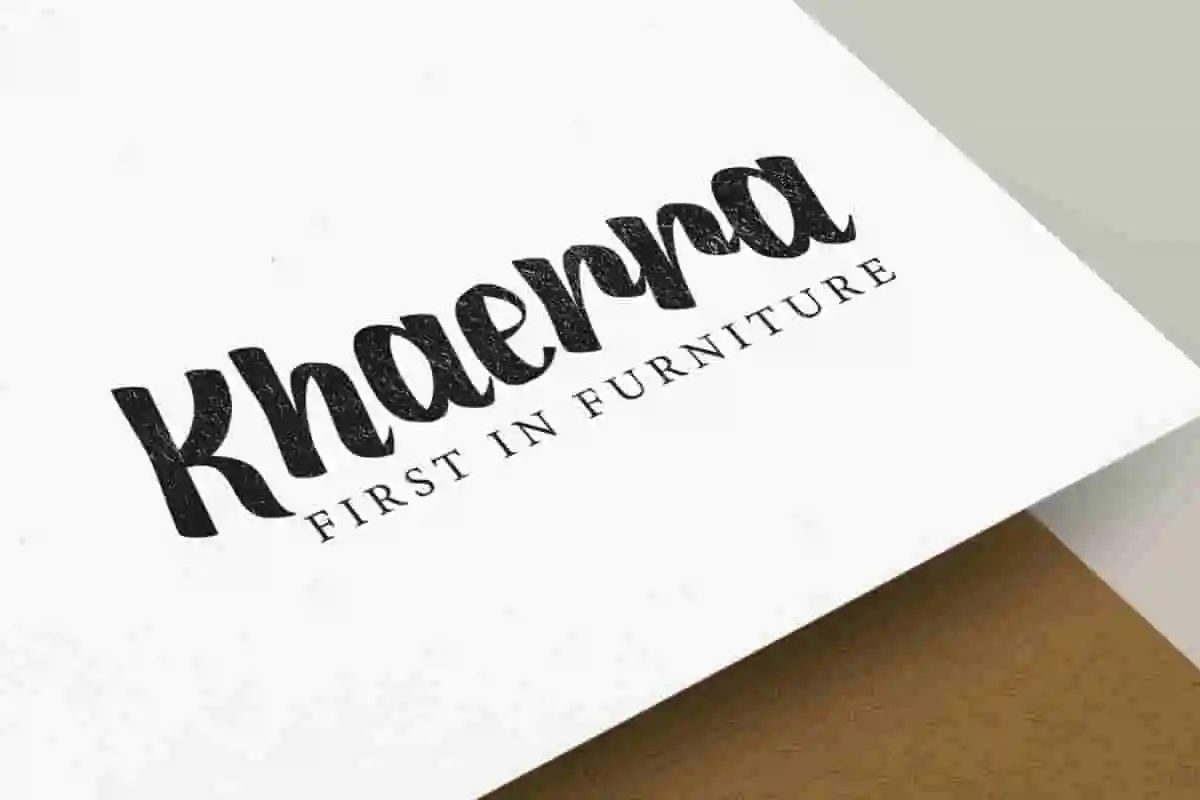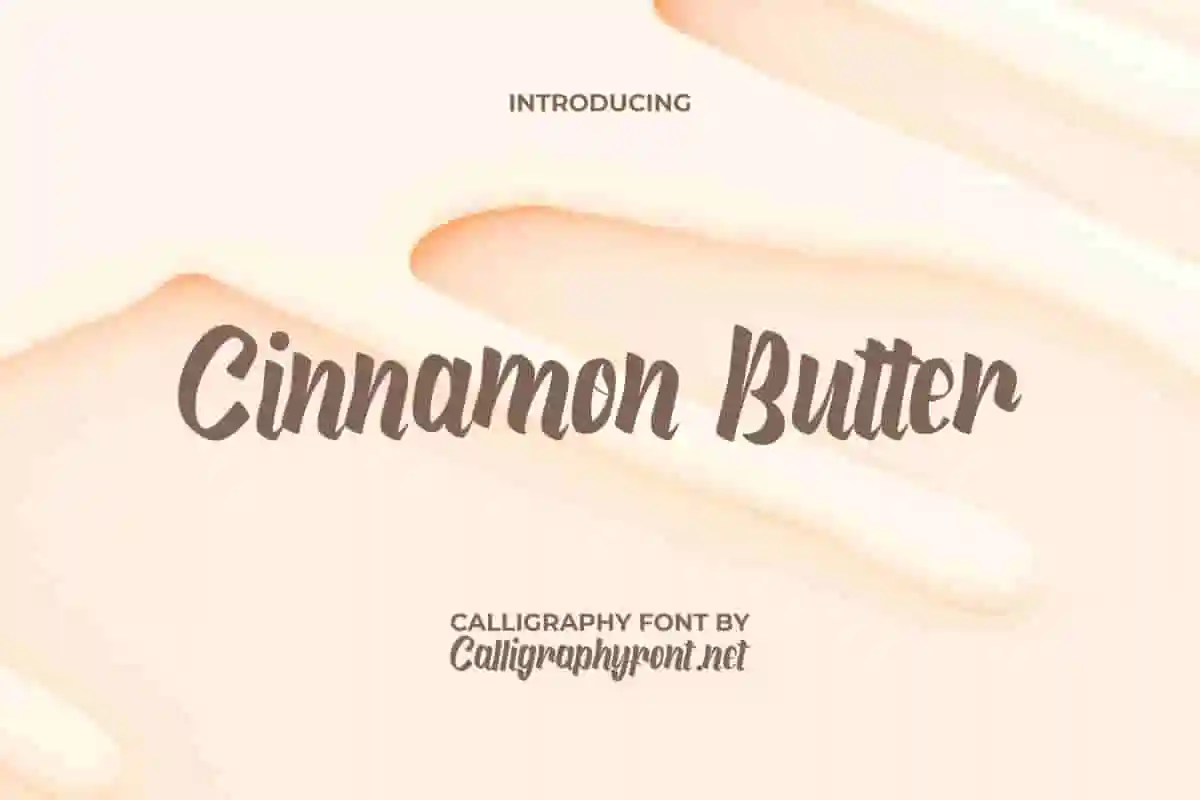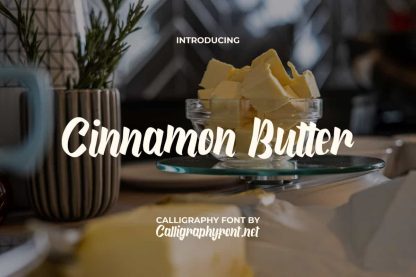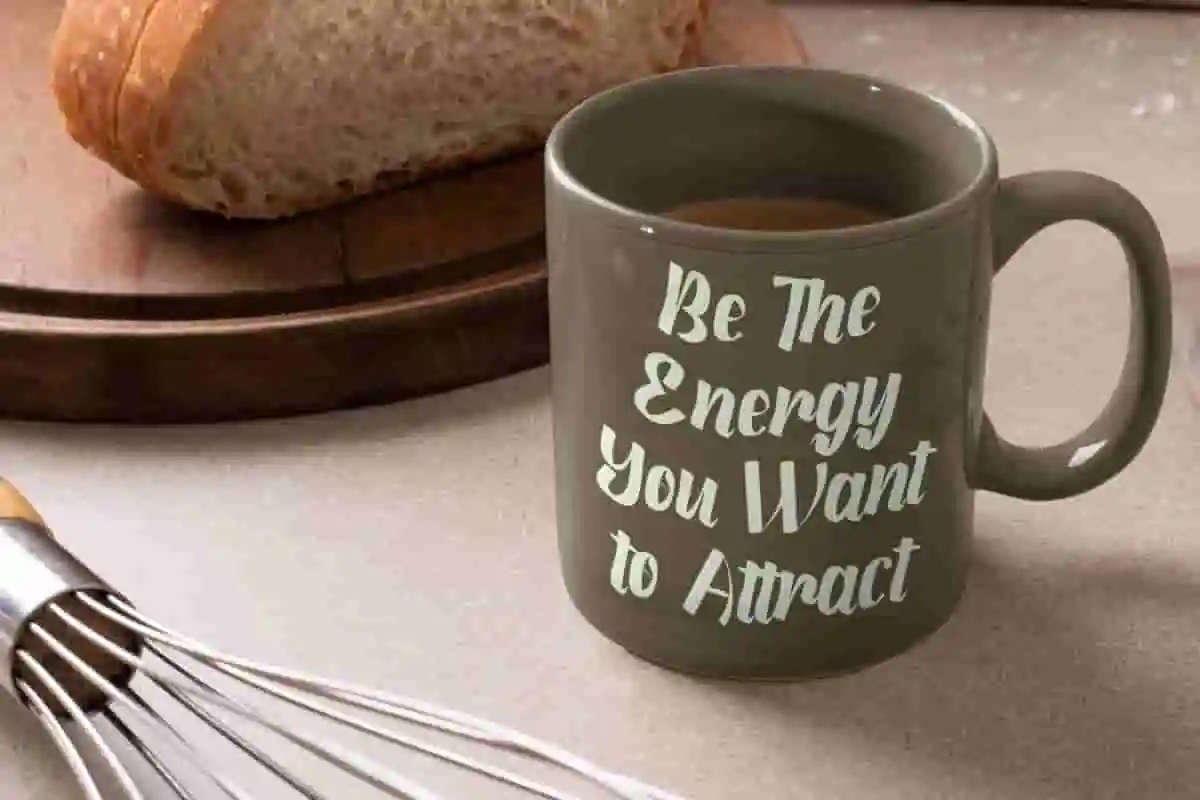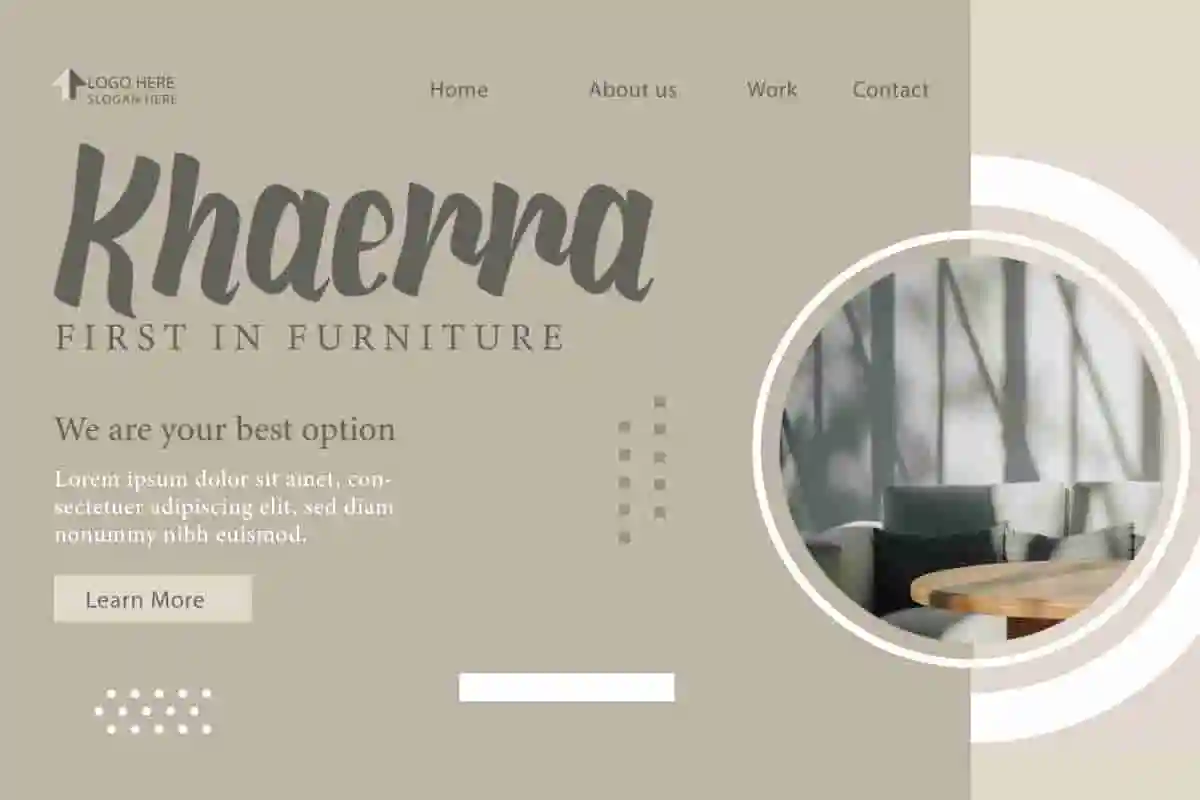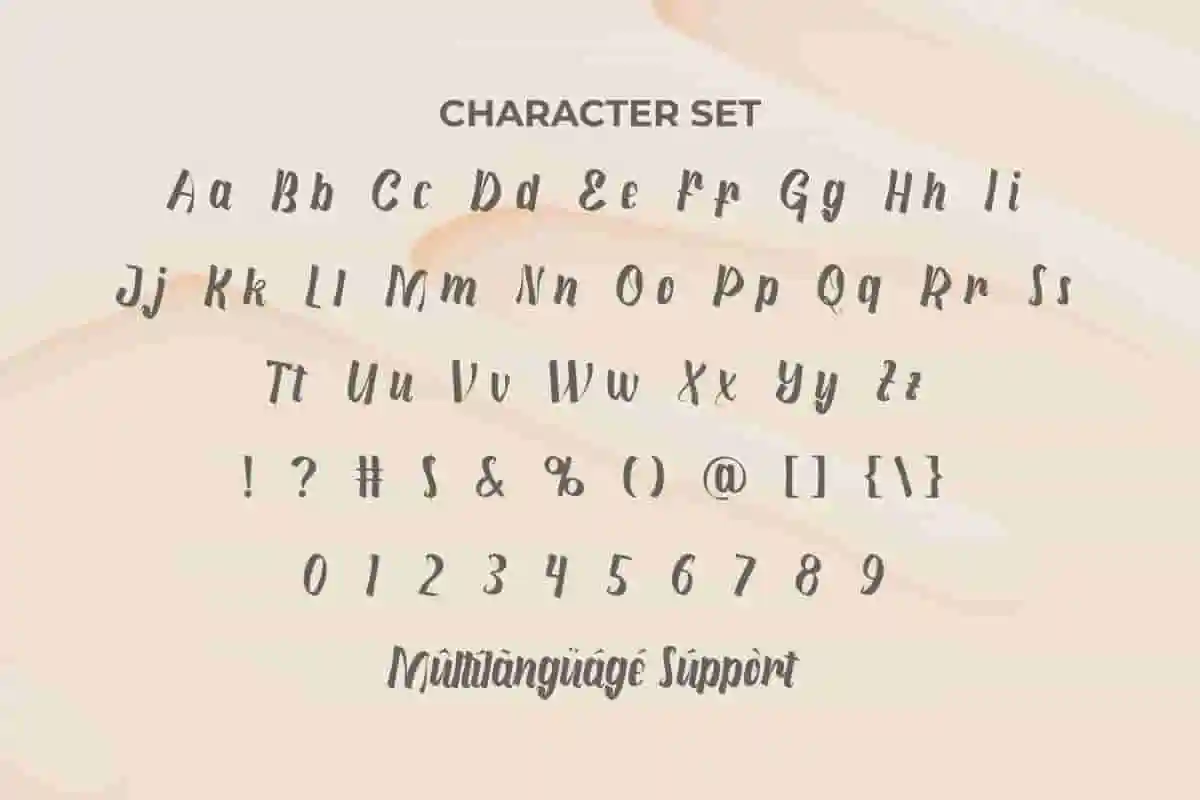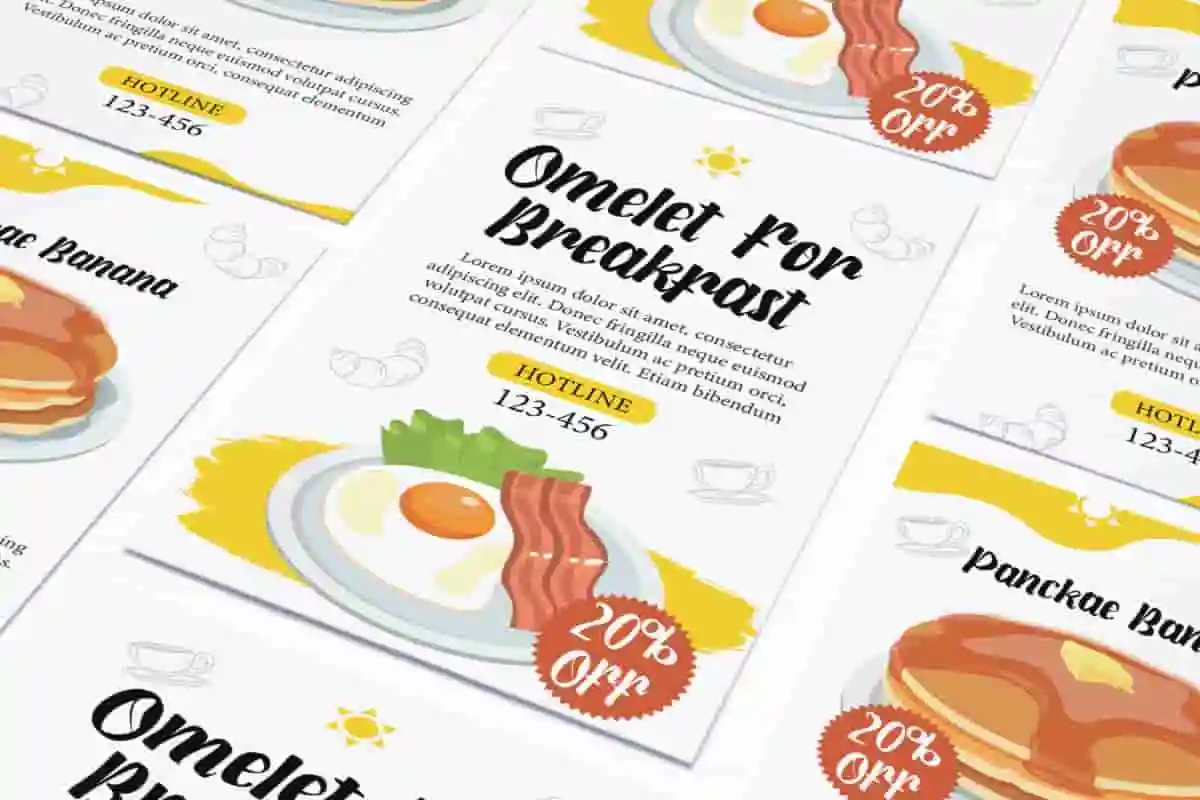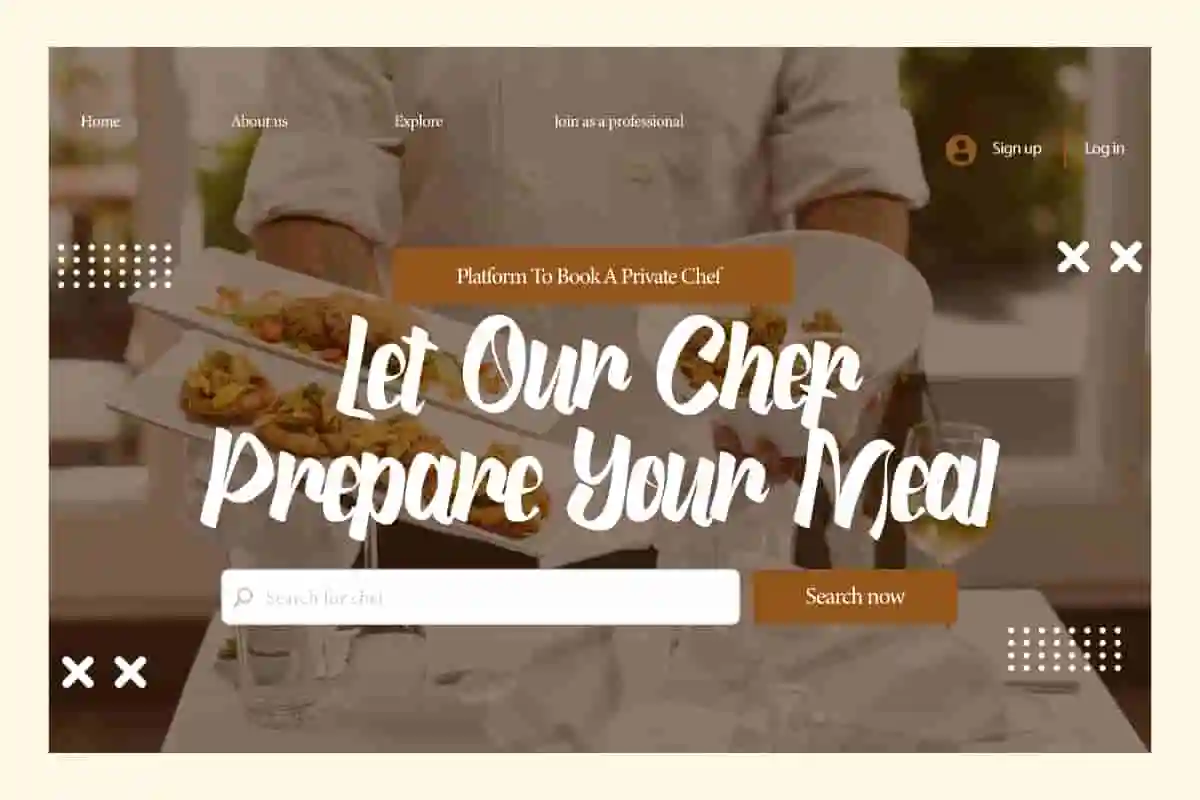
Cinnamon Butter Font
Cinnamon Butter Font is a beautiful calligraphy font, originally handmade for any graphic design you create!
Cinnamon Butter Font is a modern calligraphy font with bold characters. This font can make your design stand out and make you curious. It’s perfectly made to any creative project, such as custom design, invitation, menu board, label, marketing material, website, cover, custom design, brand logo, packaging, quote, screen print, and many more!
Cinnamon Butter Font is a stylish font that inspired by natural handwriting with brush. It gives an impressive feel that makes your work more appealing, so it’s perfect for any industry, such as cafe, restaurant, wedding organizer, accessories, entertainment, author, beauty product, content creator, fashion, furniture, graphic design, handicraft, interior design, photography, printing, publishing, writer, etc.